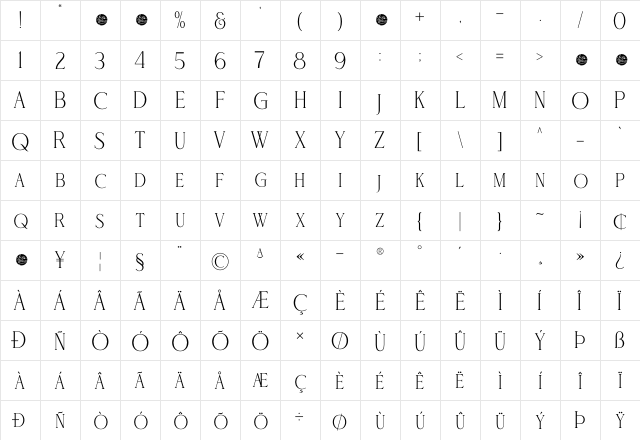
NEVOCLARA Regular
| Designer | MLKWSN STUDIO 2020 - Rivo Adriansyah - Abdul Malik Wisnu |
Design Context for NEVOCLARA Typeface
NEVOCLARA takes a measured approach to typography — its balanced proportions and neutral character make it a reliable workhorse for both digital and print work.